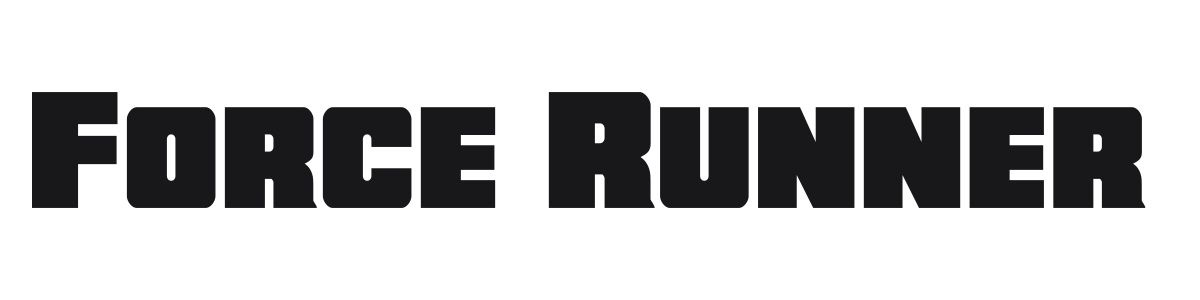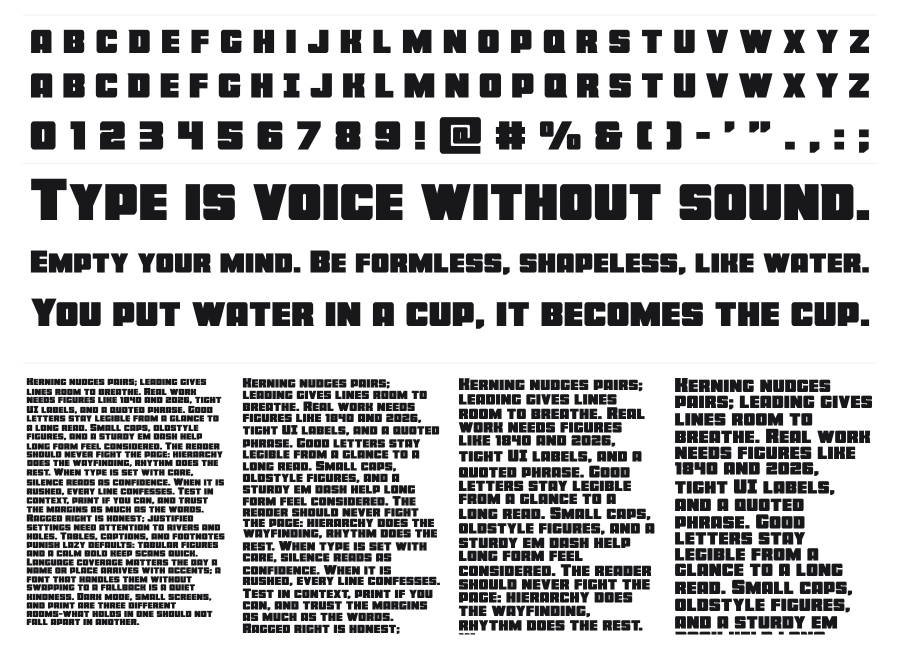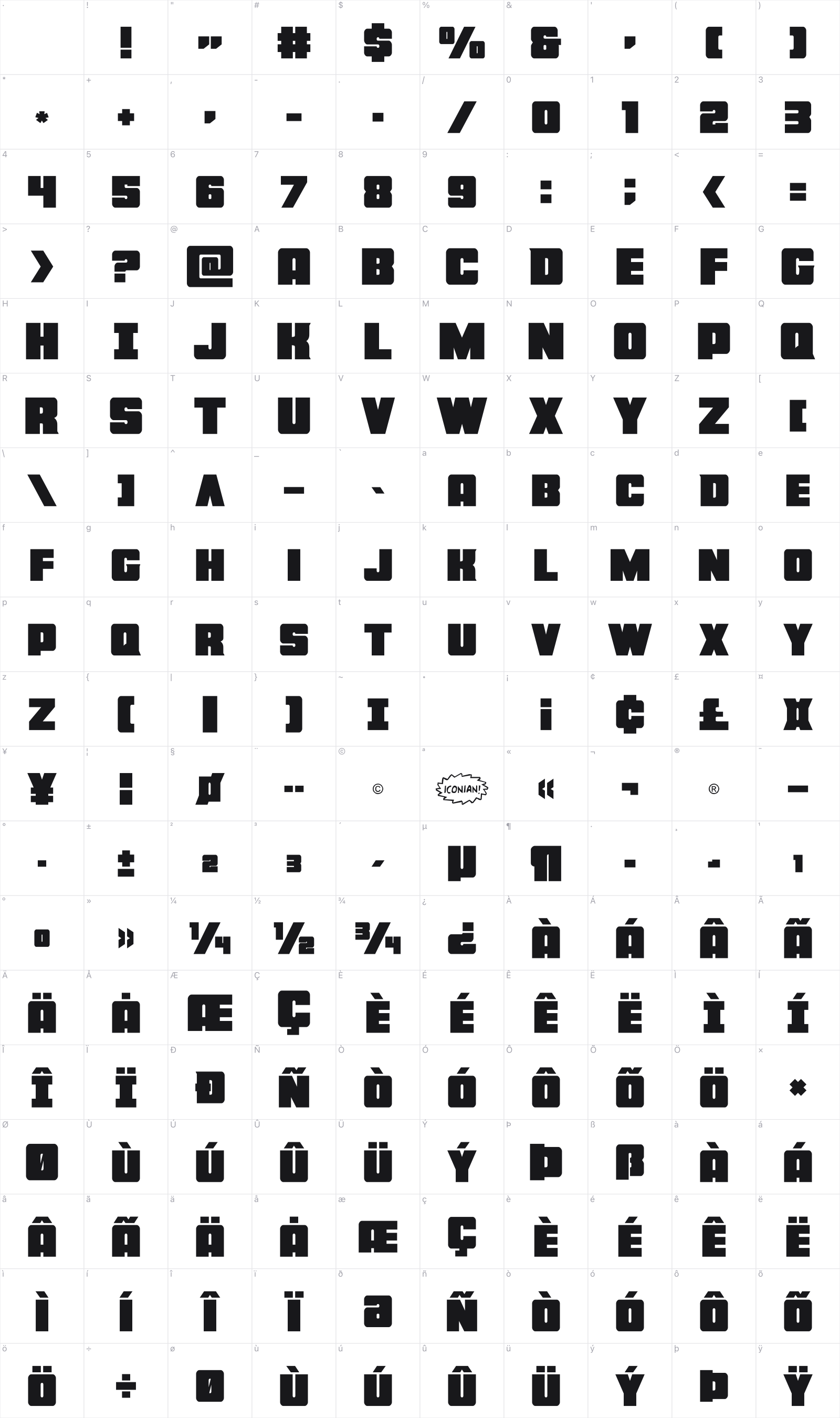
Force Runner
Force Runner is a heavy, condensed display sans with a blocky, squared-off construction that radiates action-movie energy. Subtle angled notches cut into stroke junctions add just enough sci-fi tension to keep it from reading as plain bold type. It comes in an impressive 24 variants including 3D, outline, halftone, and laser styles.